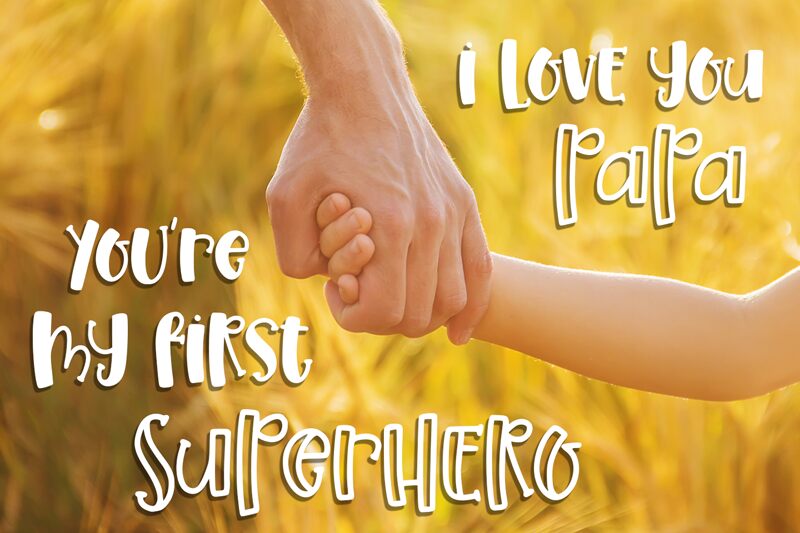
Pumpkin Syrup Line is an exciting display font designed by Panggah Laksono @ Abo Daniel Studio. With its cartoon style and condensed width, it's perfect for adding a touch of fun to any project. From printed materials like posters to digital designs like logos, Pumpkin Syrup Line will make your work stand out. Its quirky letterforms are great for creating eye-catching titles and headers that will draw attention.
Pumpkin Syrup Line